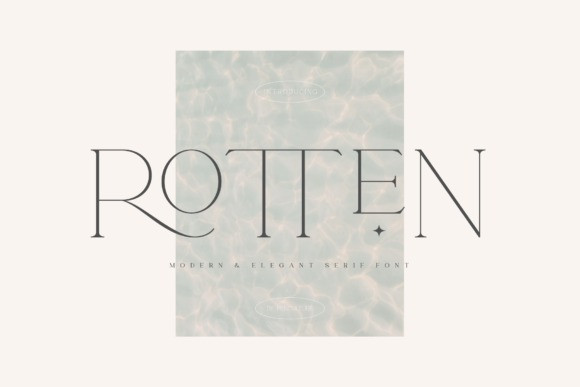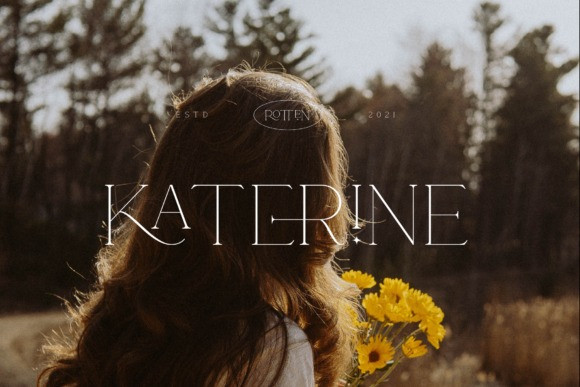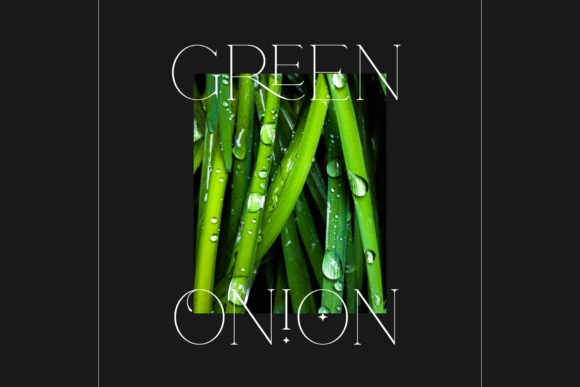
Rotten Font
Rotten is modern and elegant serif font. This font bring out minimalist and distinct concepts and is also PUA encoded, which means you can access all of the glyphs and swashes with ease!